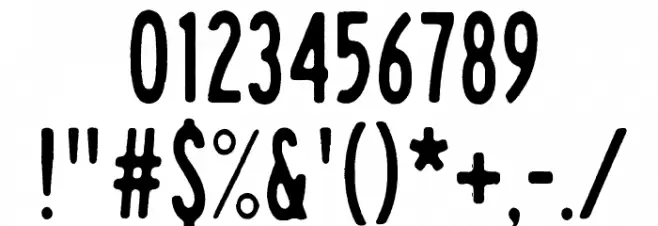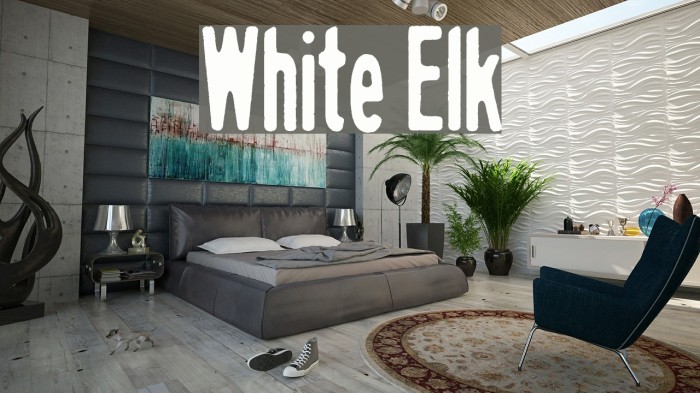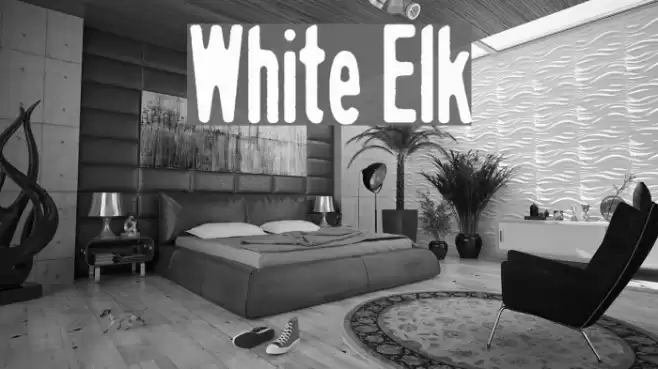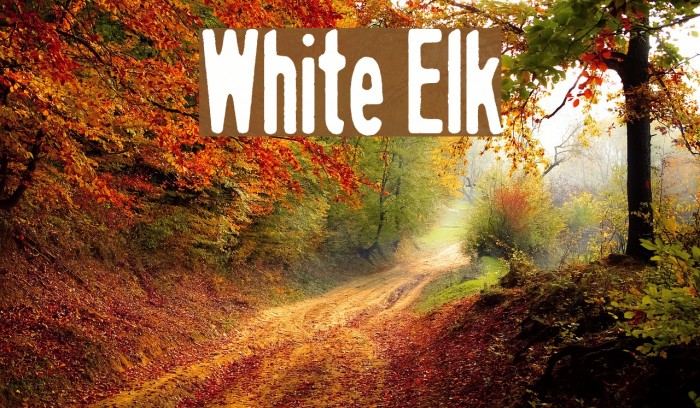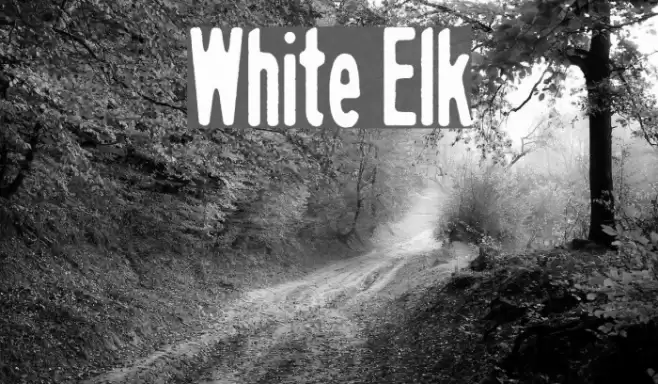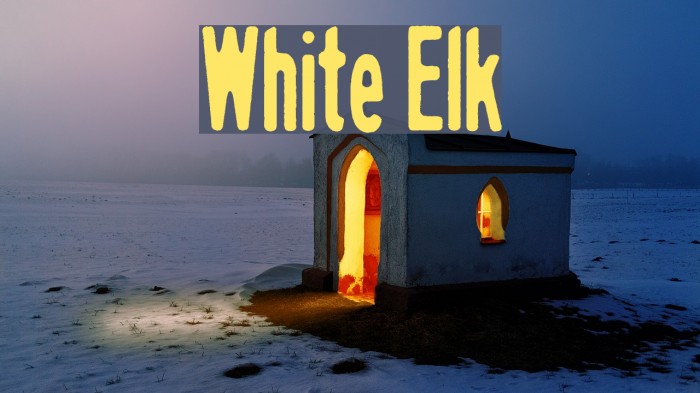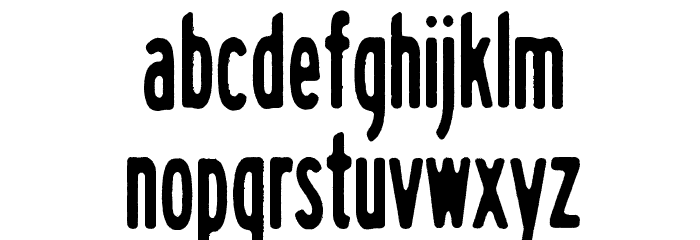
White Elk Font
White Elk Description
This font features a bold and slightly condensed style with a hand-drawn appearance. The uppercase letters are tall and narrow, while the lowercase letters maintain a consistent height, giving the font a cohesive look. The numbers are well-proportioned and align with the overall style. Special characters are included, maintaining the same bold and slightly rough texture. The font's unique character is emphasized by its uneven edges, suggesting a vintage or rustic feel. It is suitable for projects that require a touch of personality and warmth.
| Proposed Projects | Ideal for branding, posters, packaging, and any design needing a handcrafted touch. |